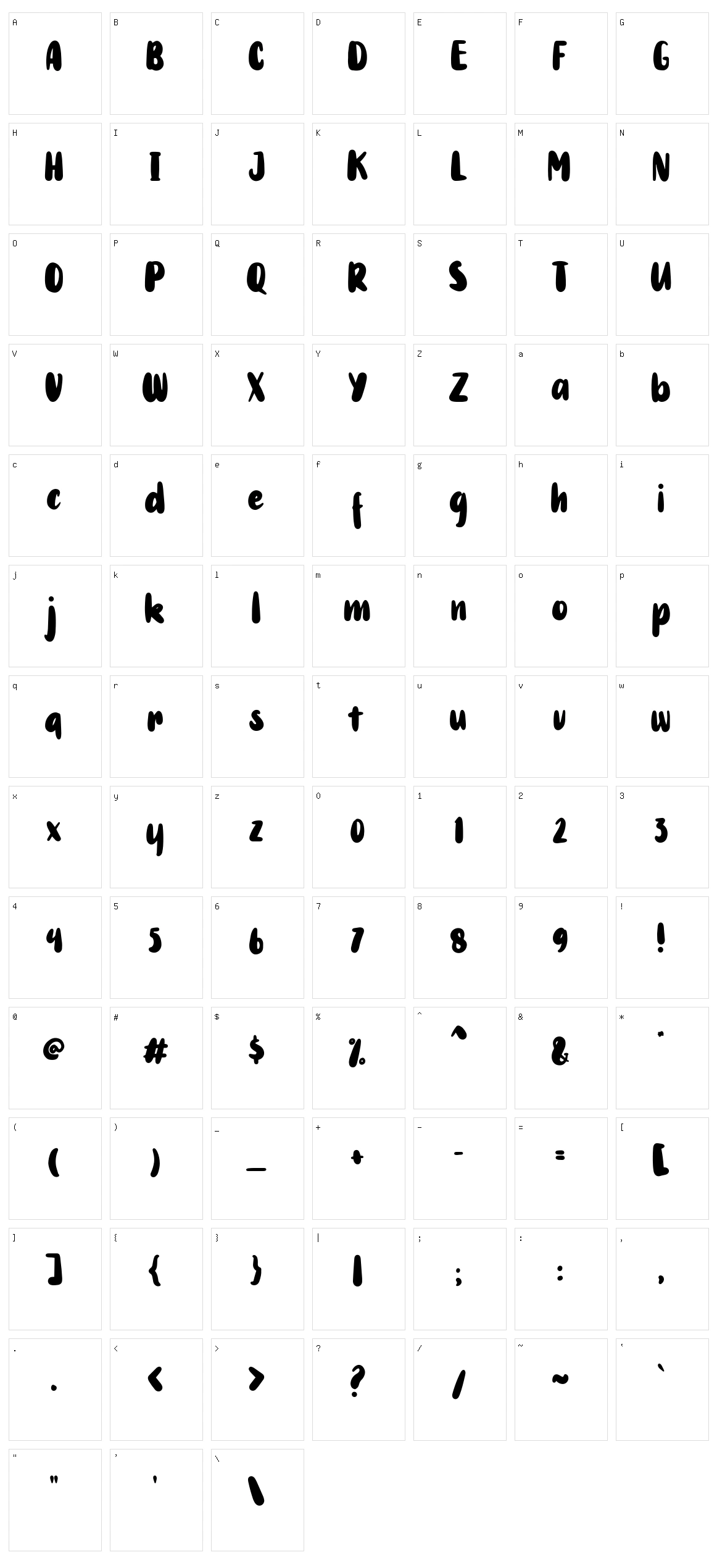
The free font Rodit Bugs is carefully designed by Hardtype, showcasing a thoughtful balance of creativity and usability and falls under the Cartoon font style. When you download the ZIP file, it contains only 56.13 KB of font files, making it lightweight and quick to download. Please review the license details below to understand permitted usage and distribution rights. If license information is not available, we recommend using this font for personal projects only or contacting the author directly for commercial usage permissions.